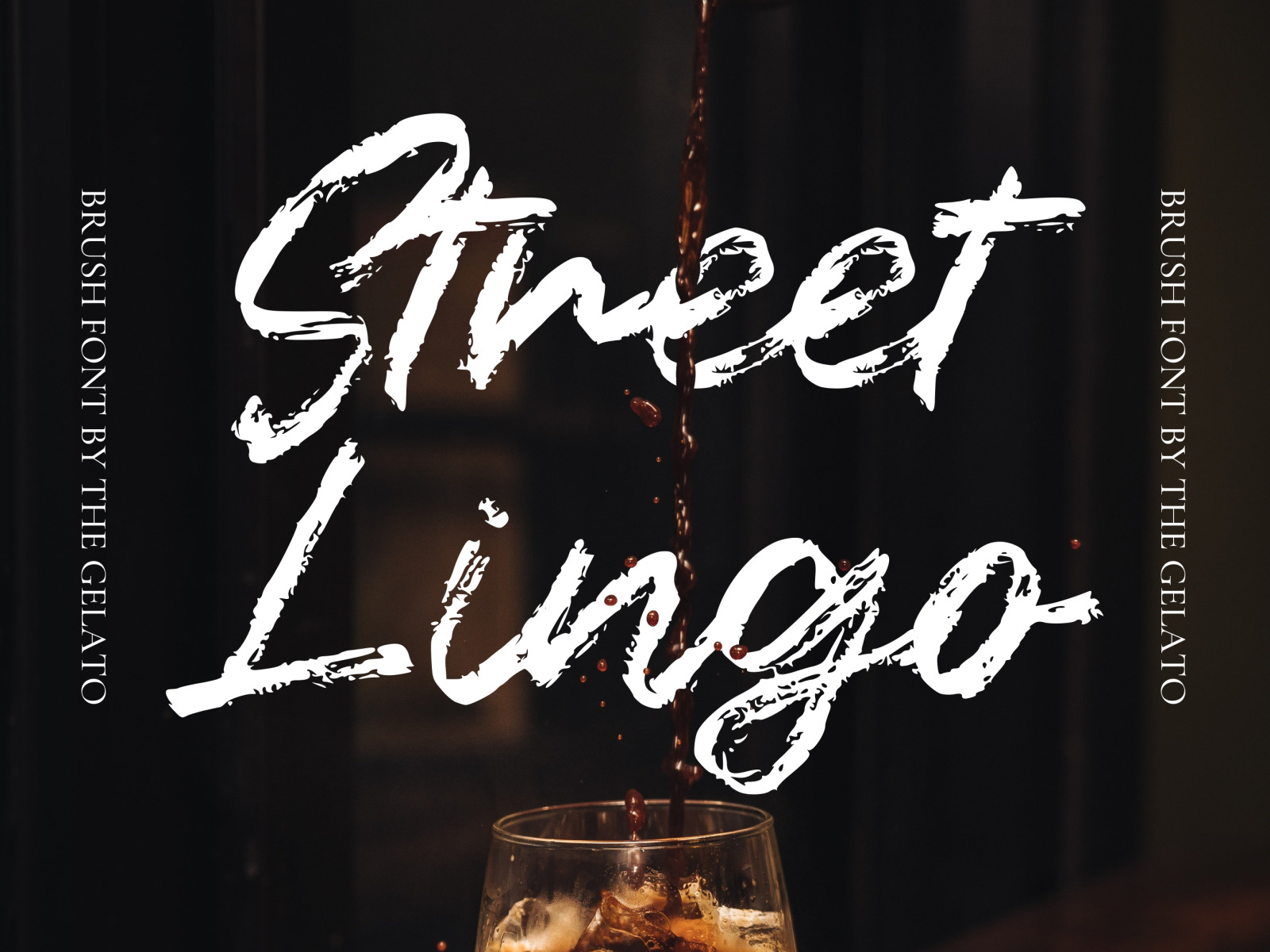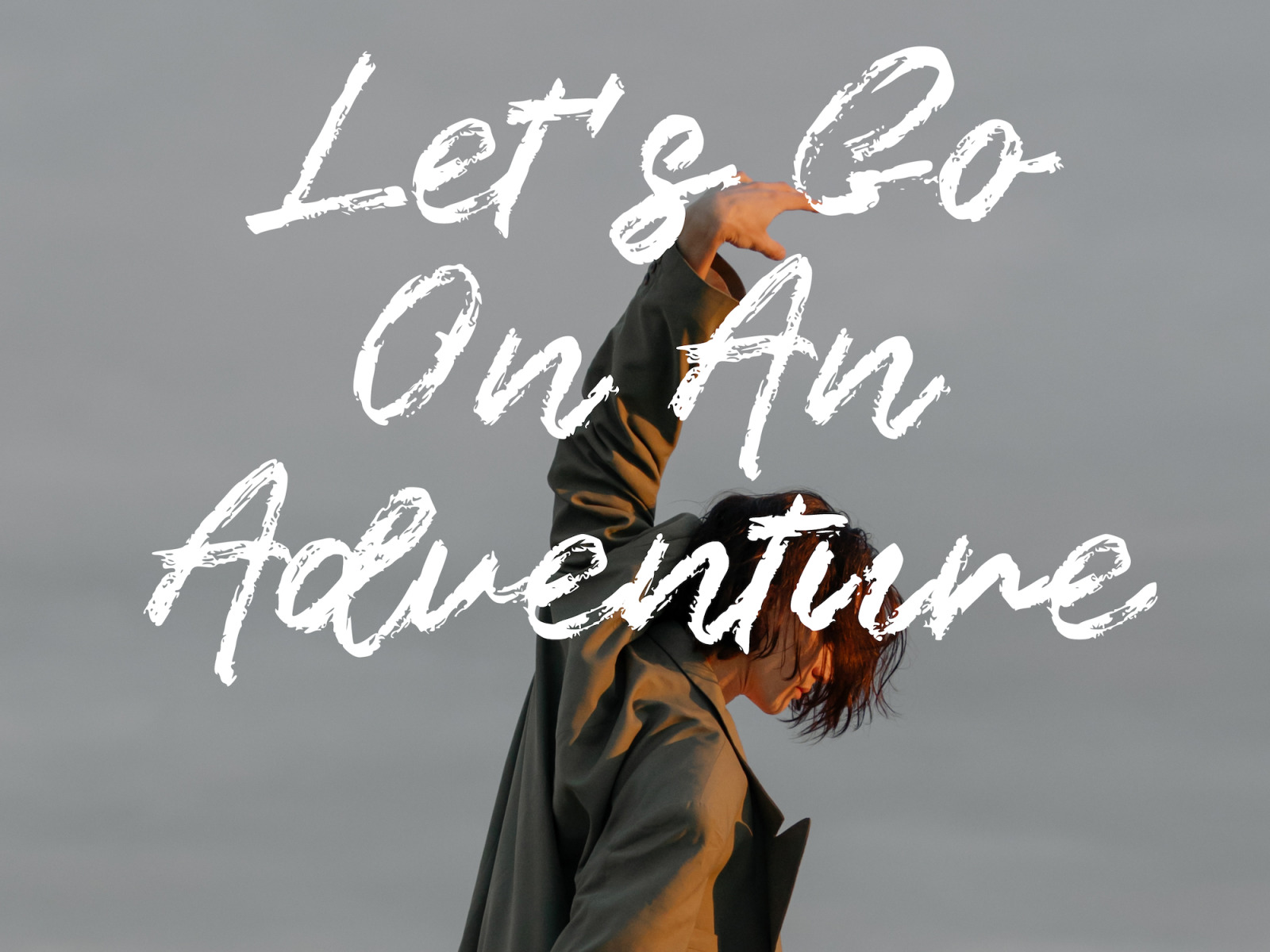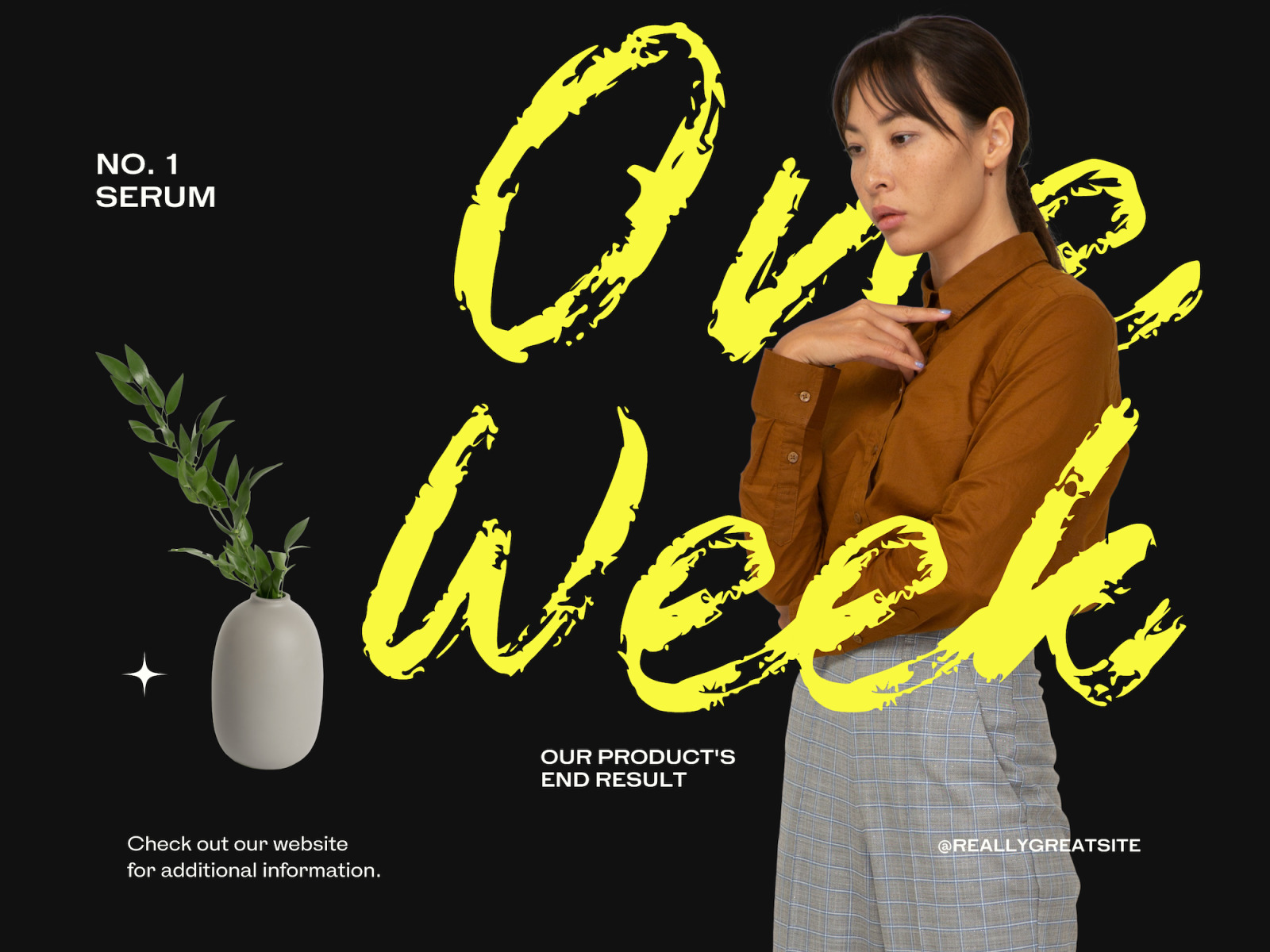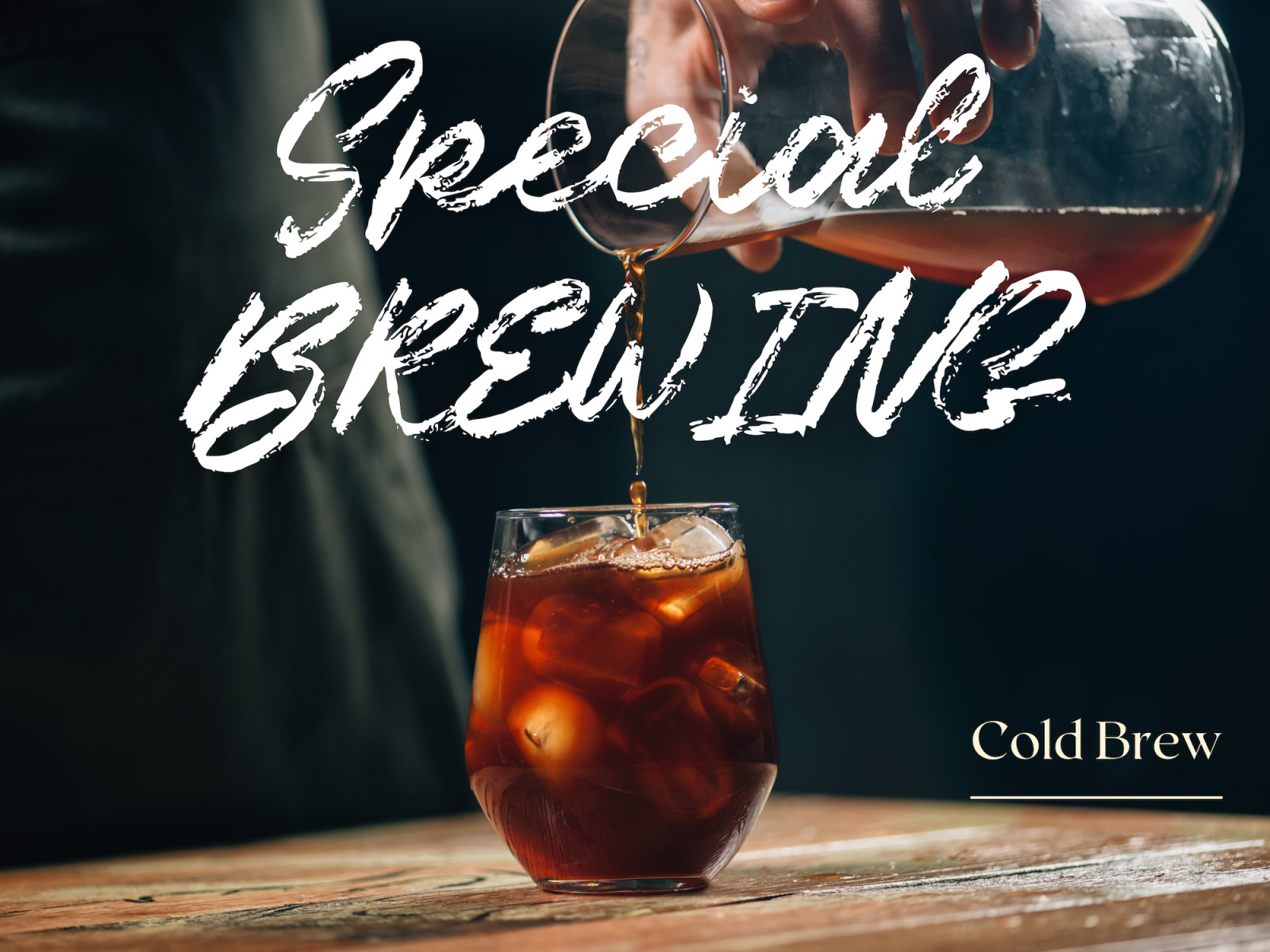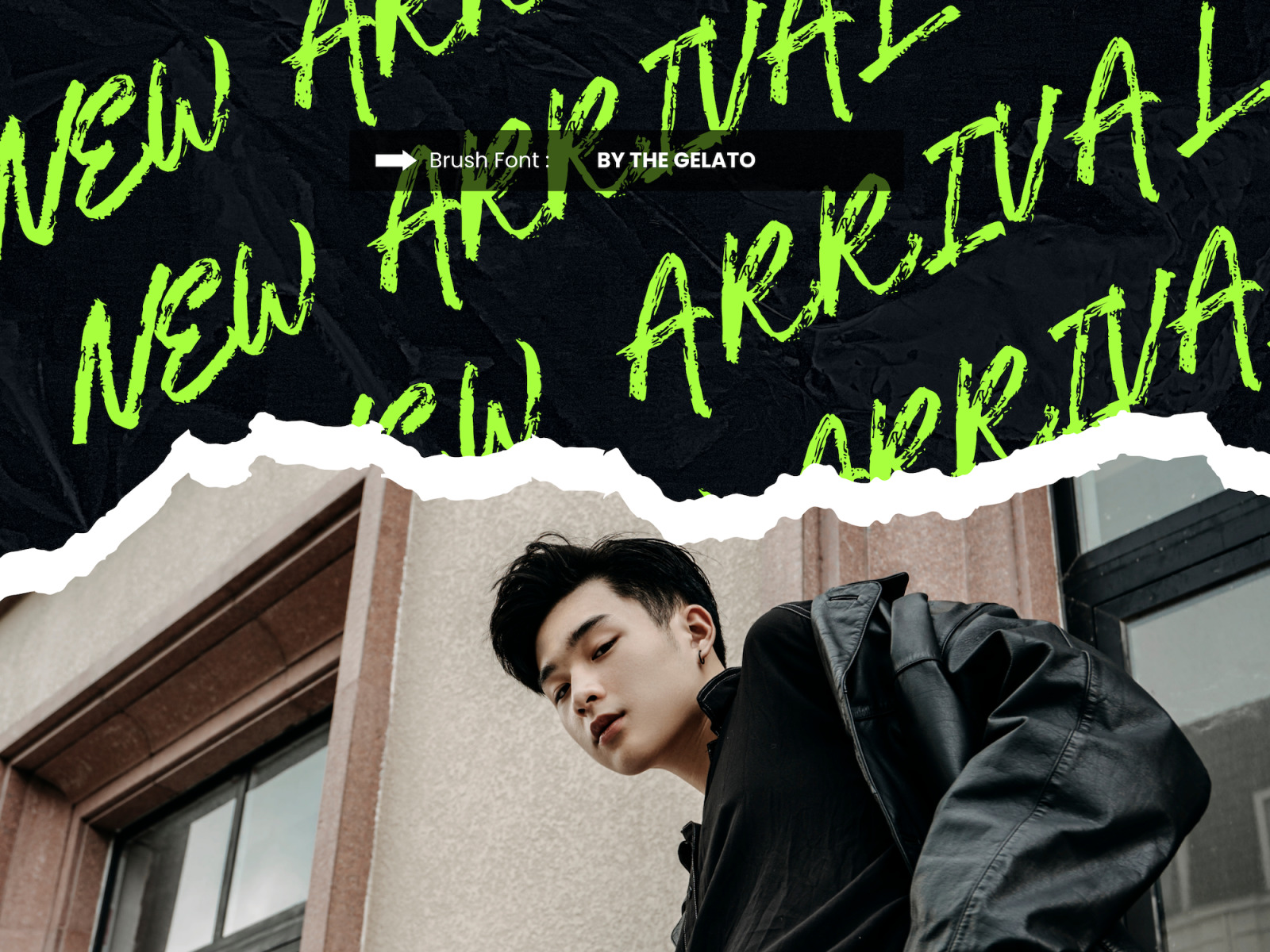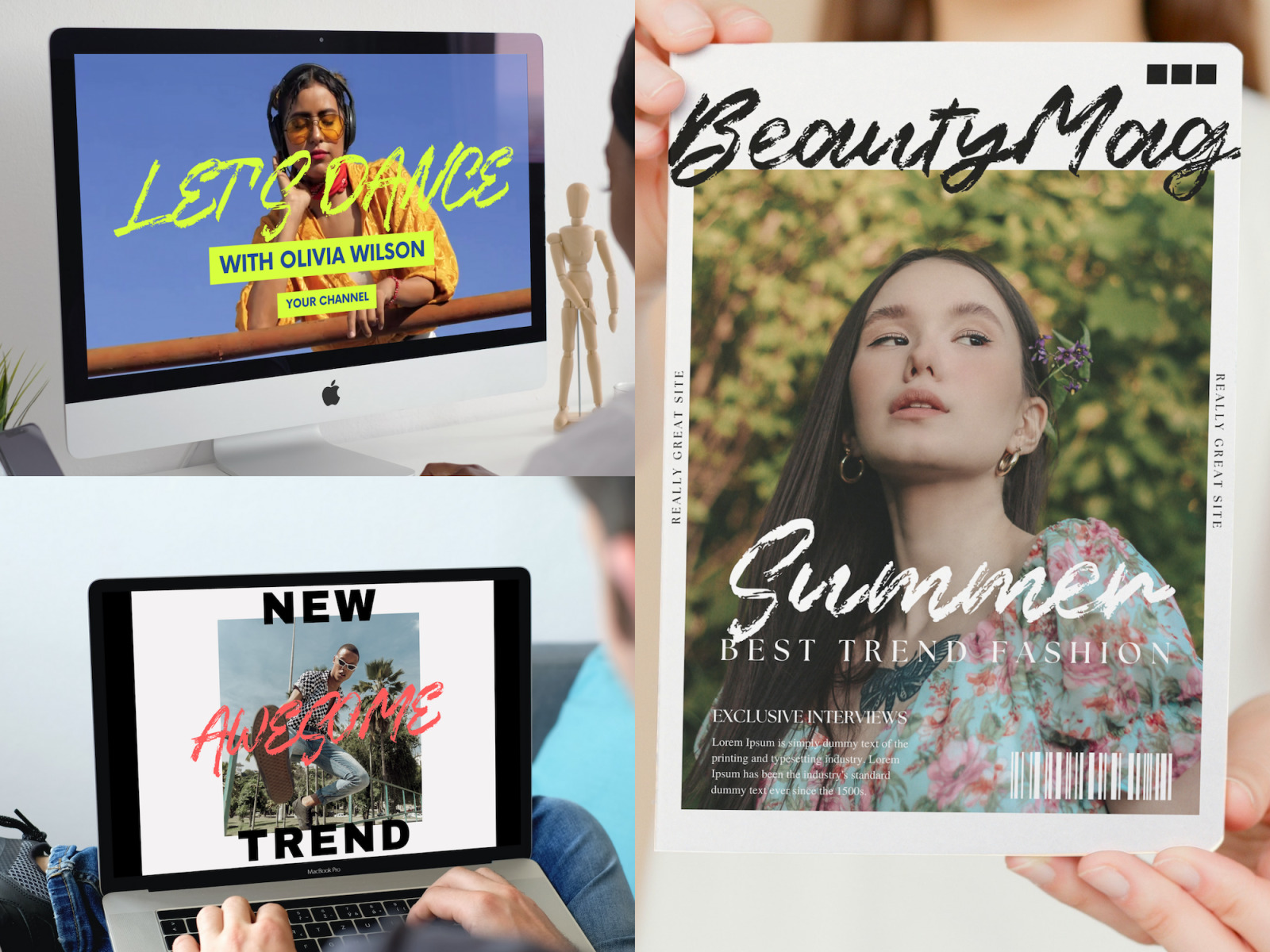
Street Lingo Brush Font
Street Lingo font is a hand-lettered brush font that can be used as a Handwritten Brush Stroke Font, Street Handwriting Font, Urban Graffiti Font, Modern Business Font, Branding Font, Adventure Font, Brush Texture Font, Canva Brush Font, Street Brush Font, Magazine Cover Font, Social Media Font, YouTube Banner Font, Street Fashion Font
Perfectly suitable for numerous use such as quotations, banners, logos, product packaging, titles, headers, menu lists, apparel, Vlog Banner, Brand Logo, Branding, Business Social Media Post, Magazine Cover, etc.